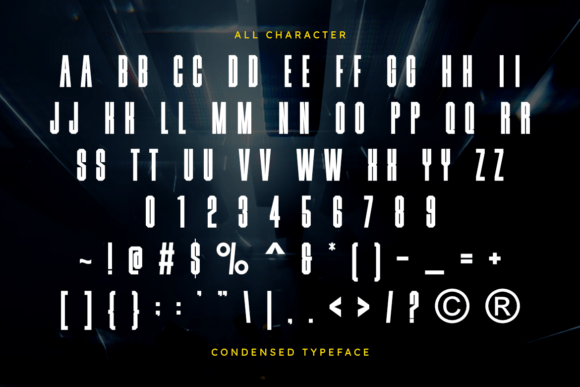
Sports Font
Sports – Sporty Condensed Display Font
Sports is a bold and athletic condensed display font designed for speed, strength, and impact. With its sharp angles, tall structure, and energetic look, it’s perfect for sports branding, jerseys, posters, automotive designs, esports graphics, racing themes, gym promotions, and bold headlines. This font delivers a powerful and competitive vibe that elevates modern and dynamic design projects.